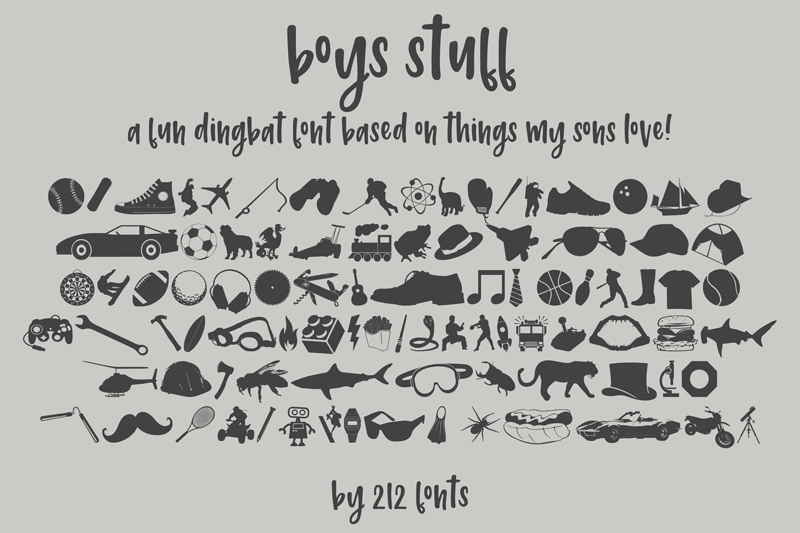
Preview and download 212 Boys Stuff Font. Created by Elizabeth in Dingbats Various styles with Free for personal use license.
98 glyphs of things my sons love! Free for personal use. Buy a $5 commercial license here: https://www.twenty3stars.com/collections/fonts-by-212-fonts Lots more dingbats and fonts to come! |